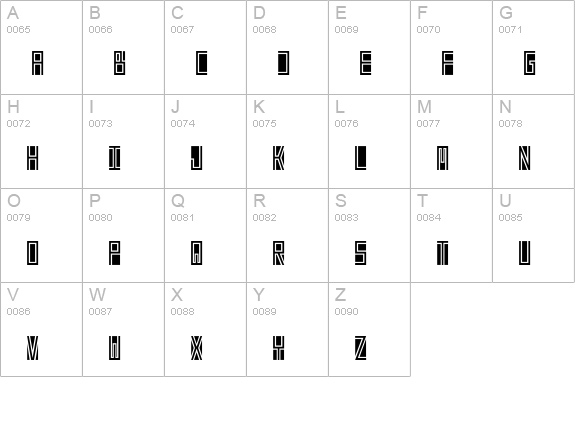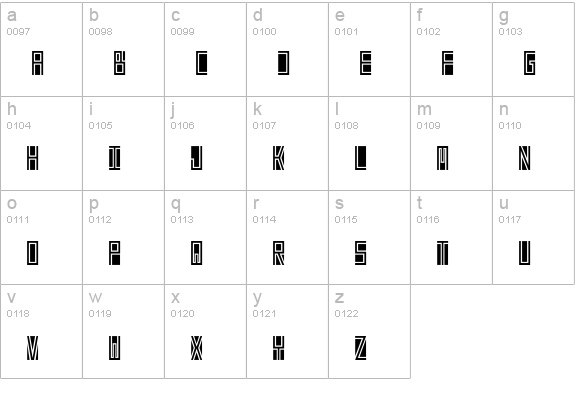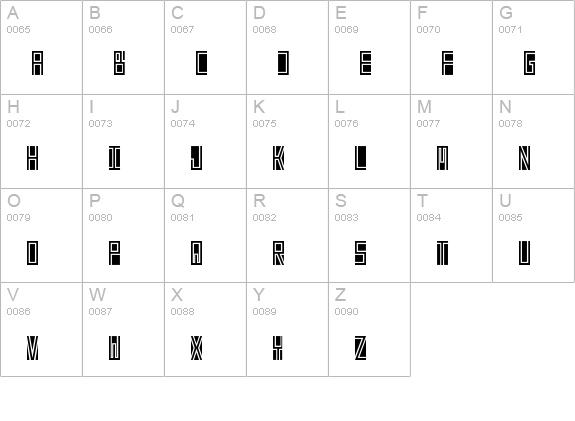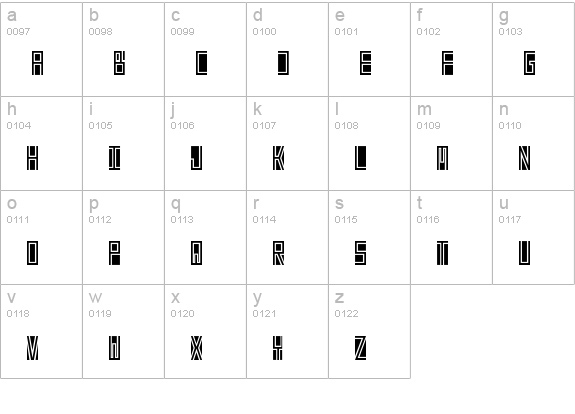
Beta Block Font Details
Beta Block font is a versatile and modern typeface that combines clean lines with a bold aesthetic. Its sleek and geometric design makes it perfect for a wide range of projects, from branding to editorial design. The font features a unique character set that adds a touch of sophistication and creativity to any text. What makes Beta Block font even more appealing is that it is available for free download at FontsMarket.com. This means that you can easily access and use this stylish font in your designs without any cost. Whether you're a professional designer or a hobbyist looking to elevate your projects, Beta Block font is a great choice for adding a contemporary and polished look to your work. Don't miss out on the opportunity to enhance your designs with this free and stylish font today!